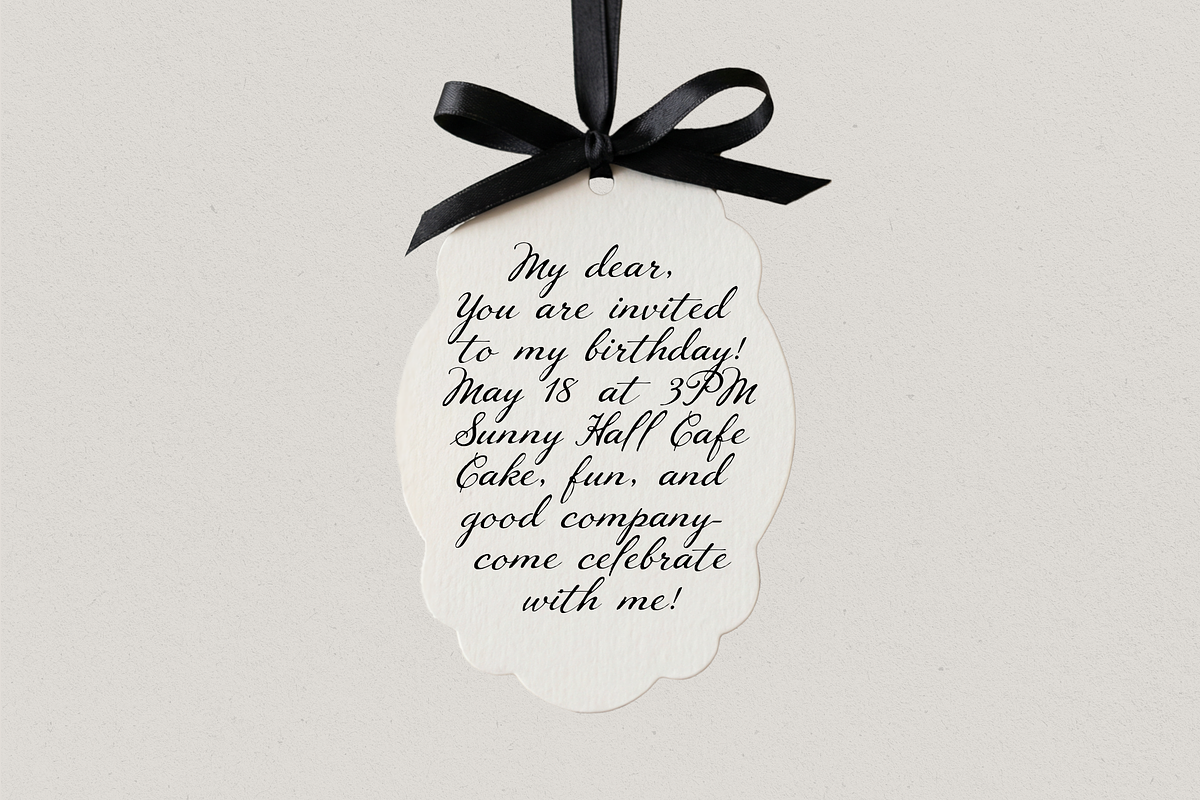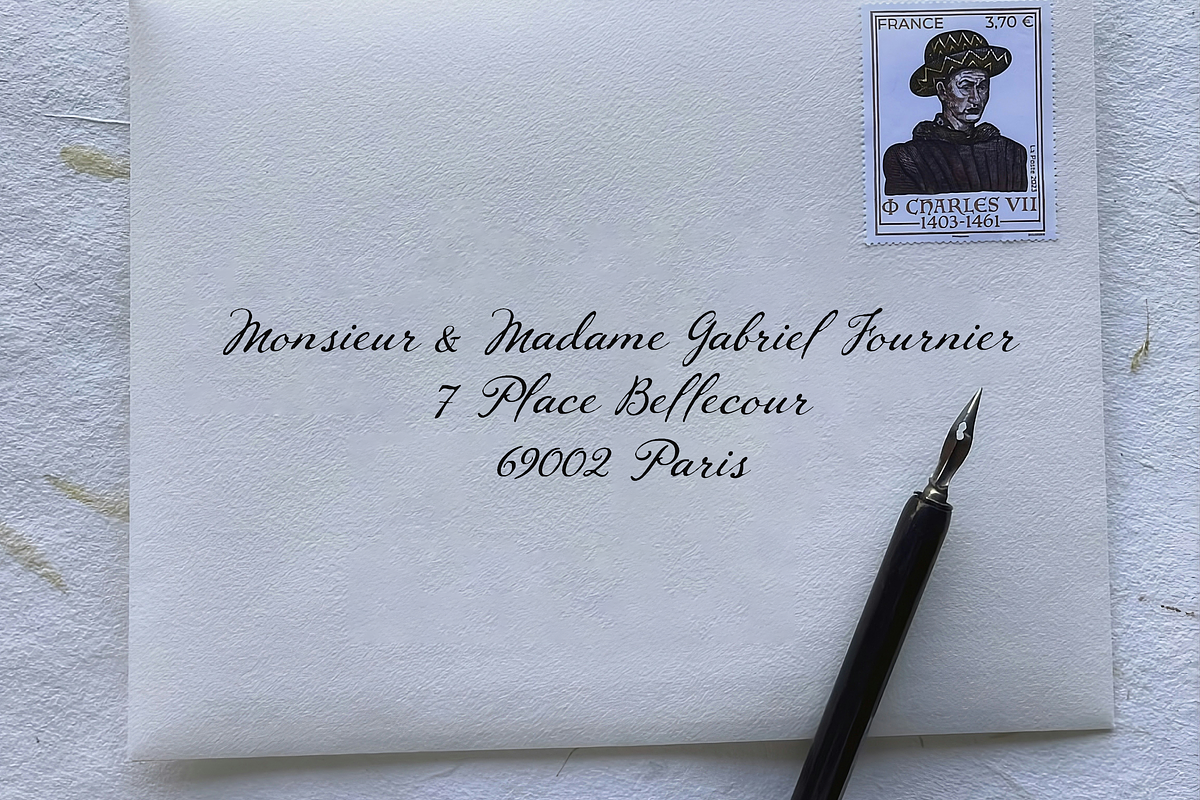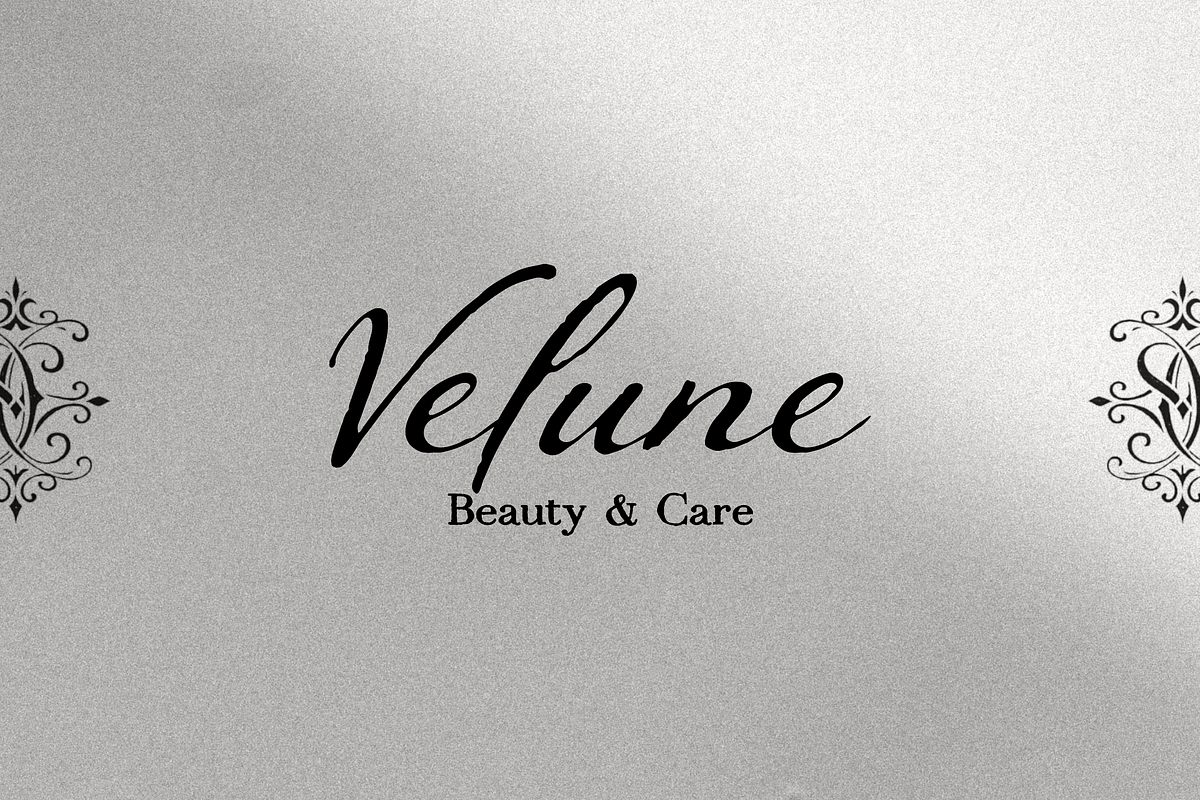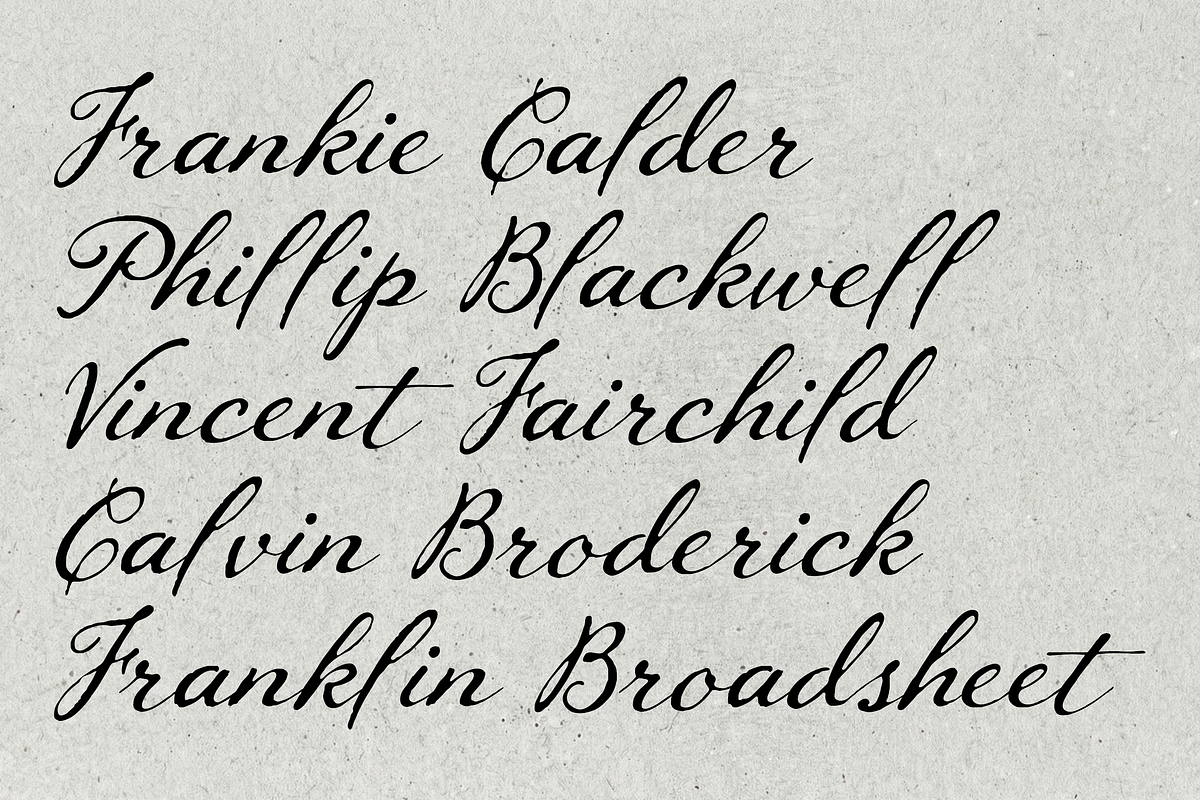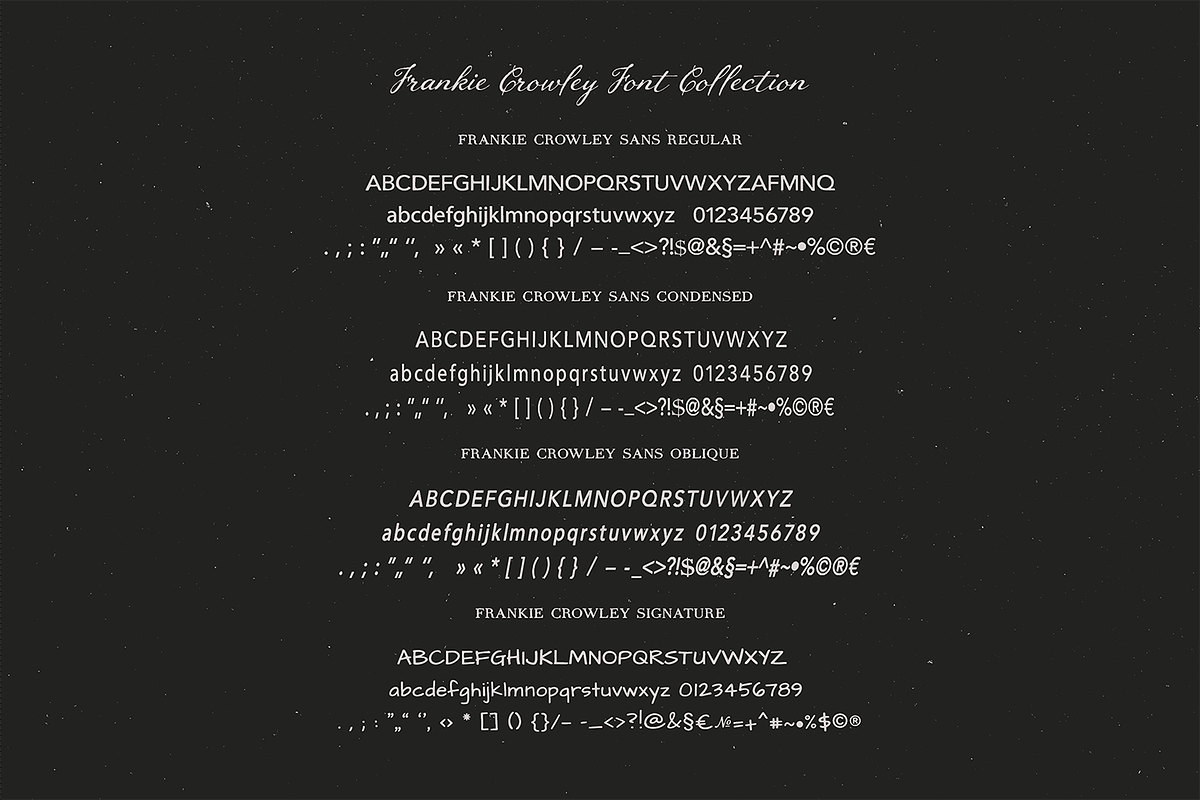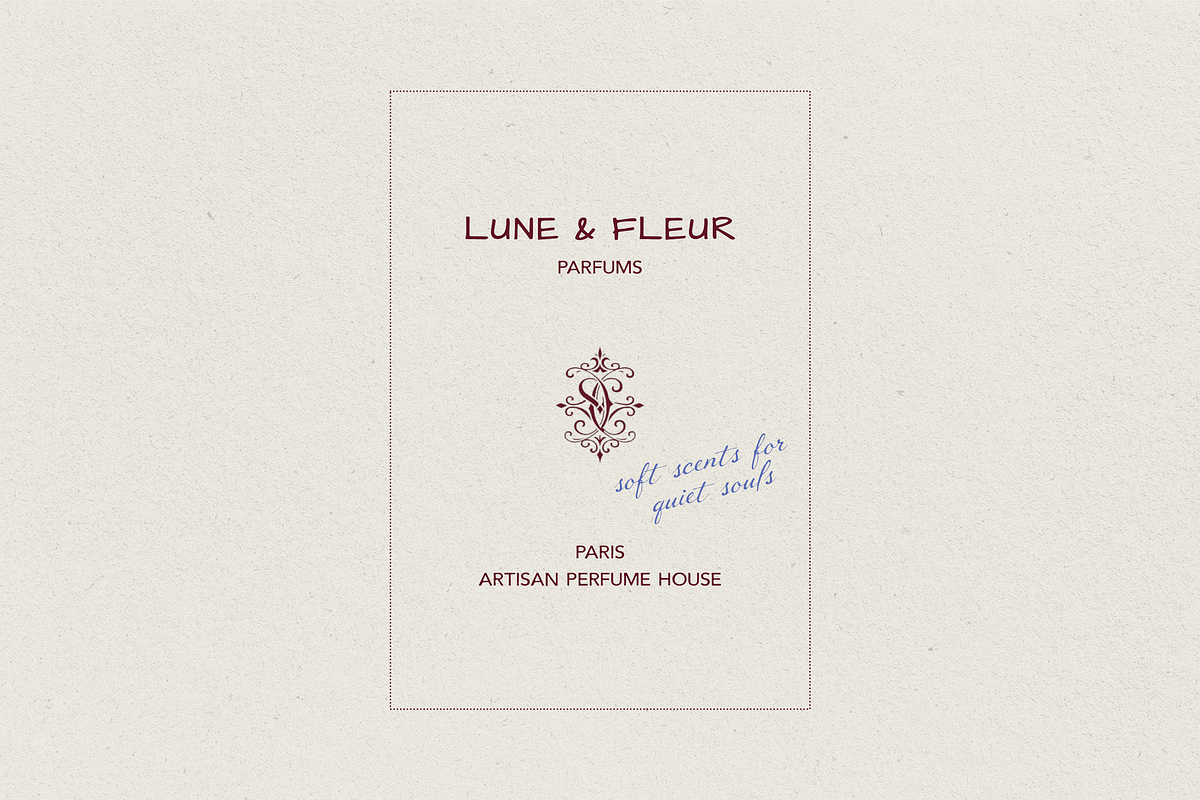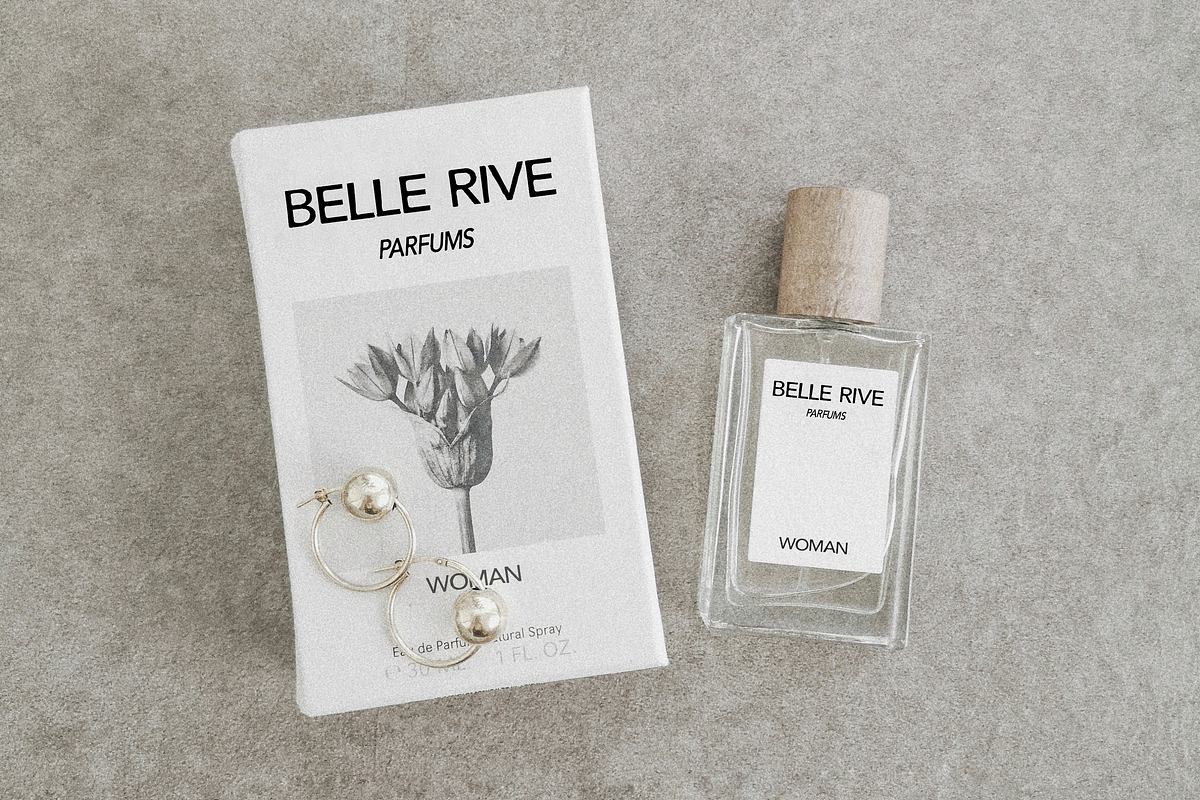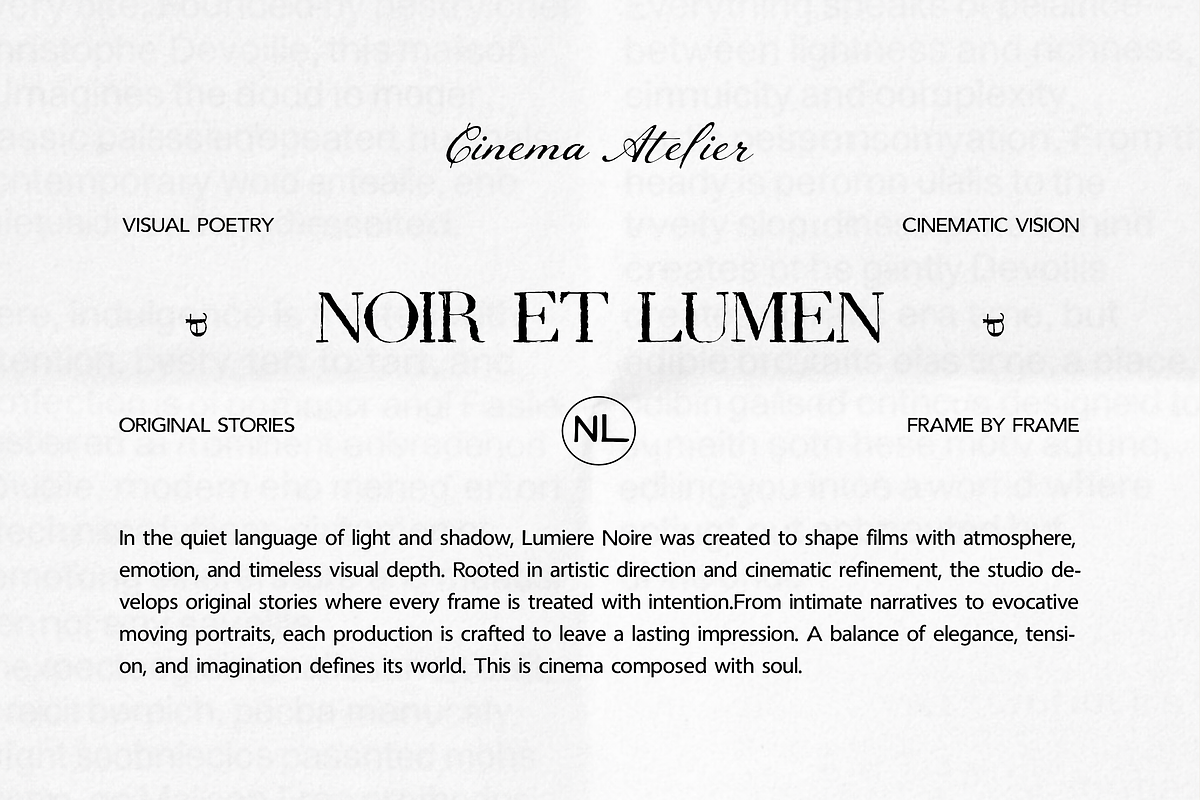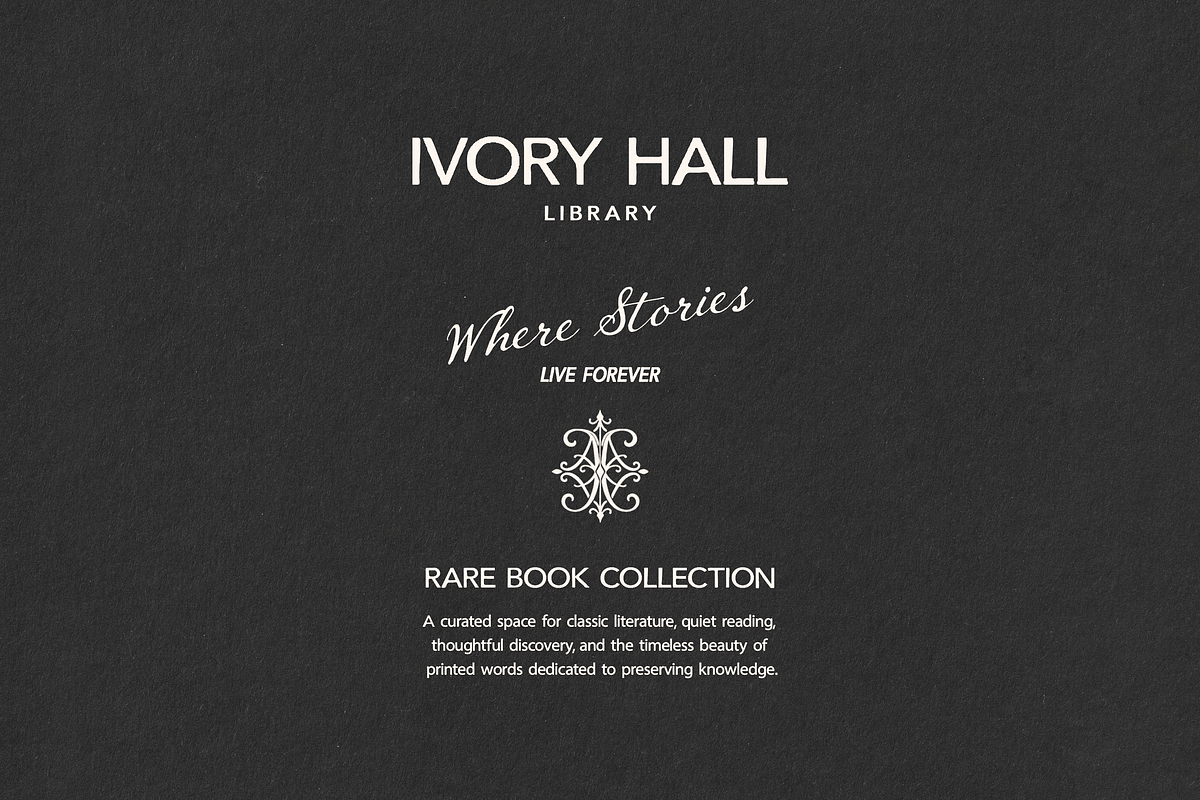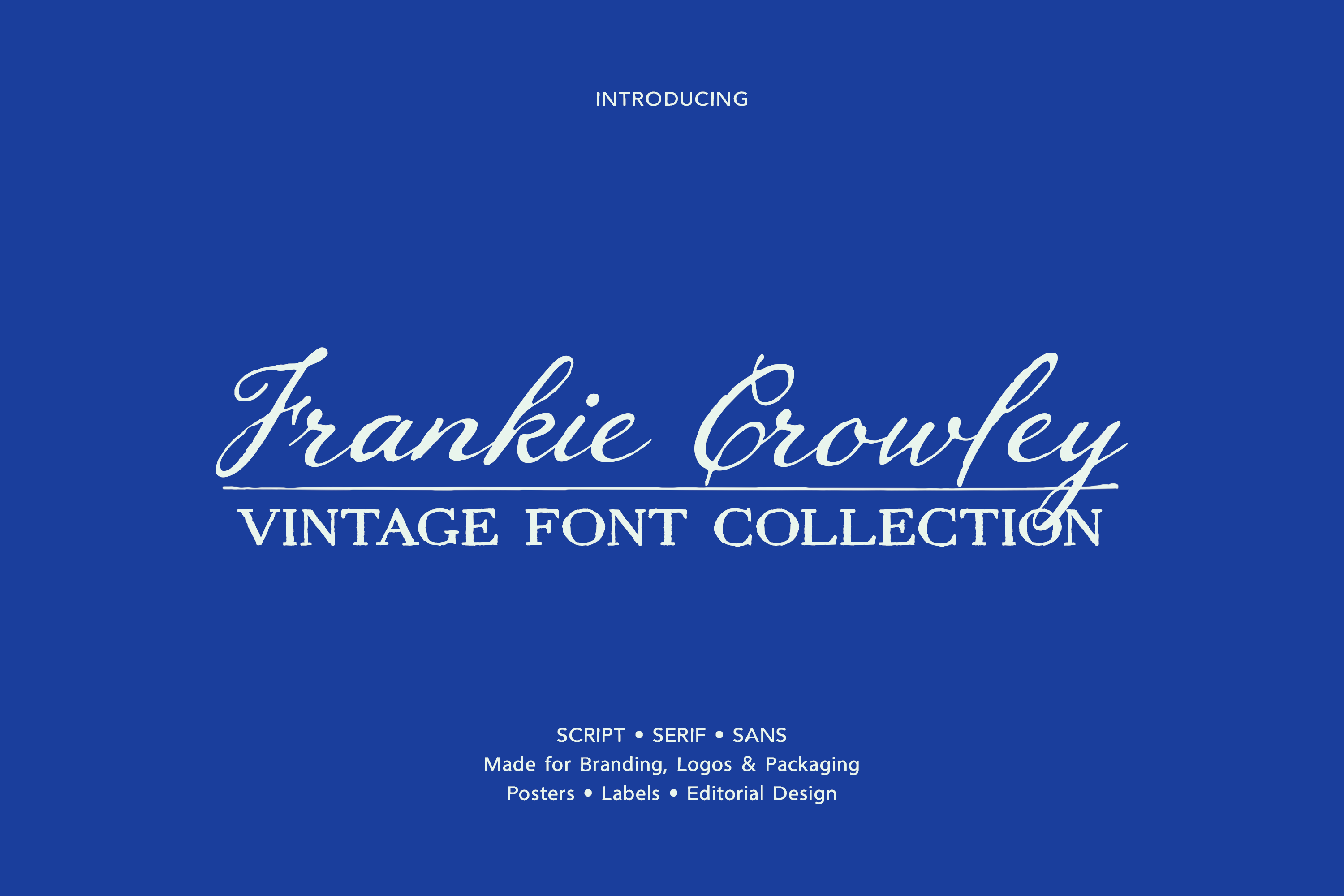
Frankie Crowley Font Collection
Frankie Crowley Vintage Font Collection is a versatile type family created for elegant branding, layered typography, and timeless design. It includes script, serif, sans, and signature styles that work beautifully together and make it easy to create polished, expressive layouts.
What makes this collection special is its balance of character and flexibility. The script and serif thin pair especially well for soft, airy, and refined compositions. The sans styles have a subtle hand-crafted feel, so they look clean without feeling cold or too rigid. On their own or combined with the script or signature font, they create a look that feels both professional and personal.
For titles, the script works beautifully with serif bold or sans as a subheading, creating a clear and elegant contrast. For text-heavy layouts, the sans styles are especially useful. You can also mix different sans versions to add hierarchy, rhythm, and visual interest.
It works especially well for fashion, beauty, perfume, weddings, boutiques, bakeries, lifestyle brands, and vintage-inspired projects.